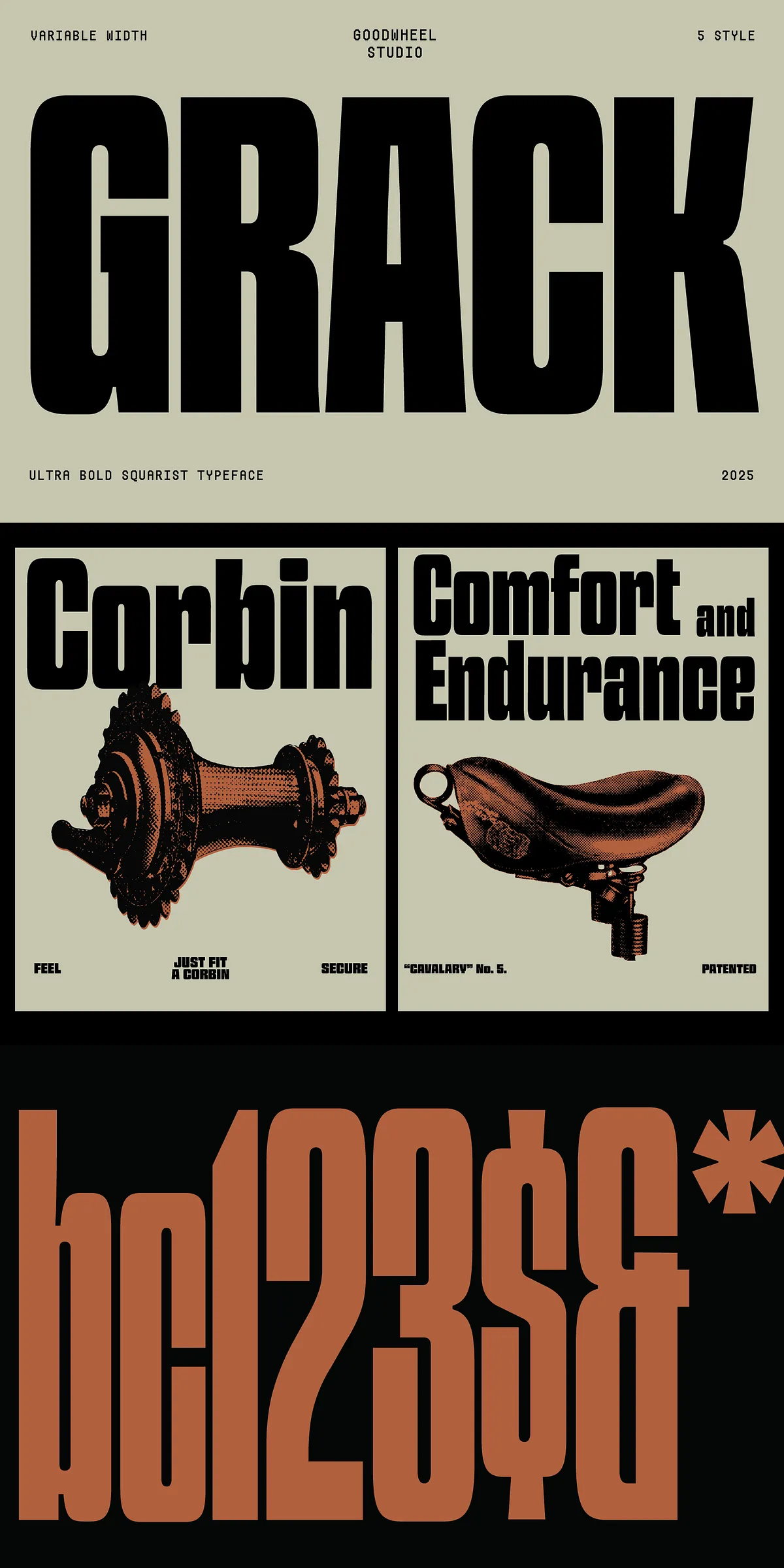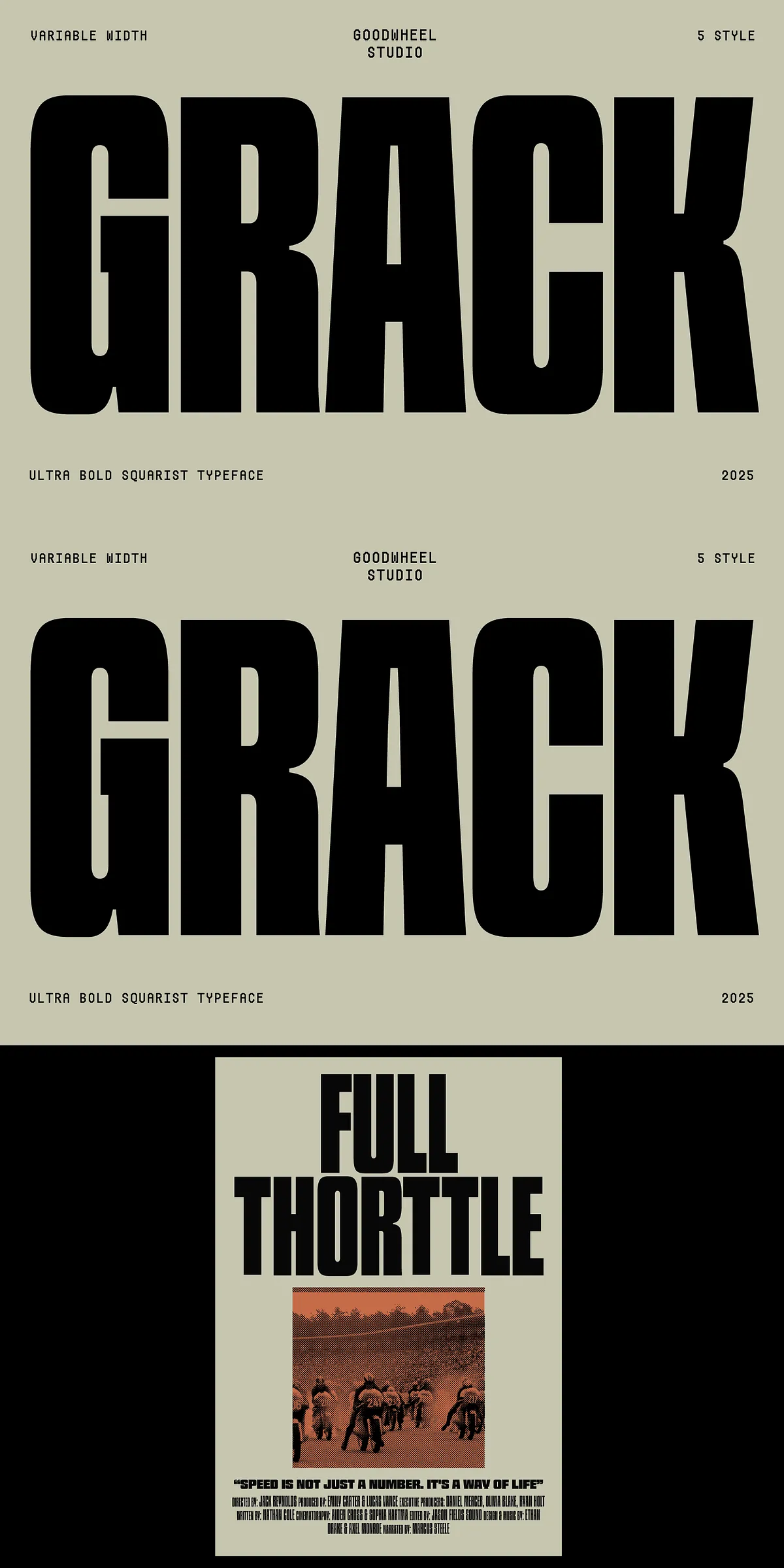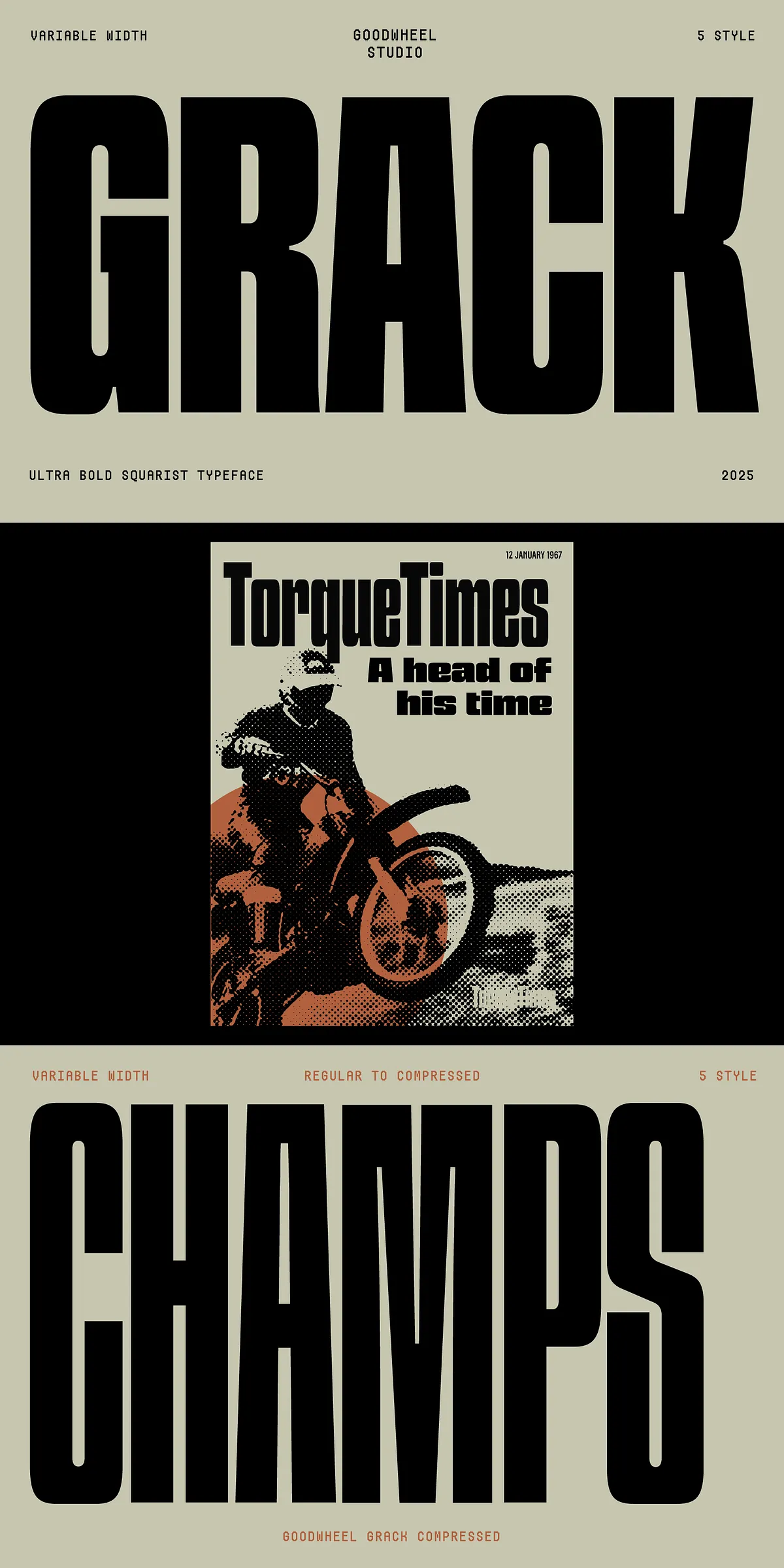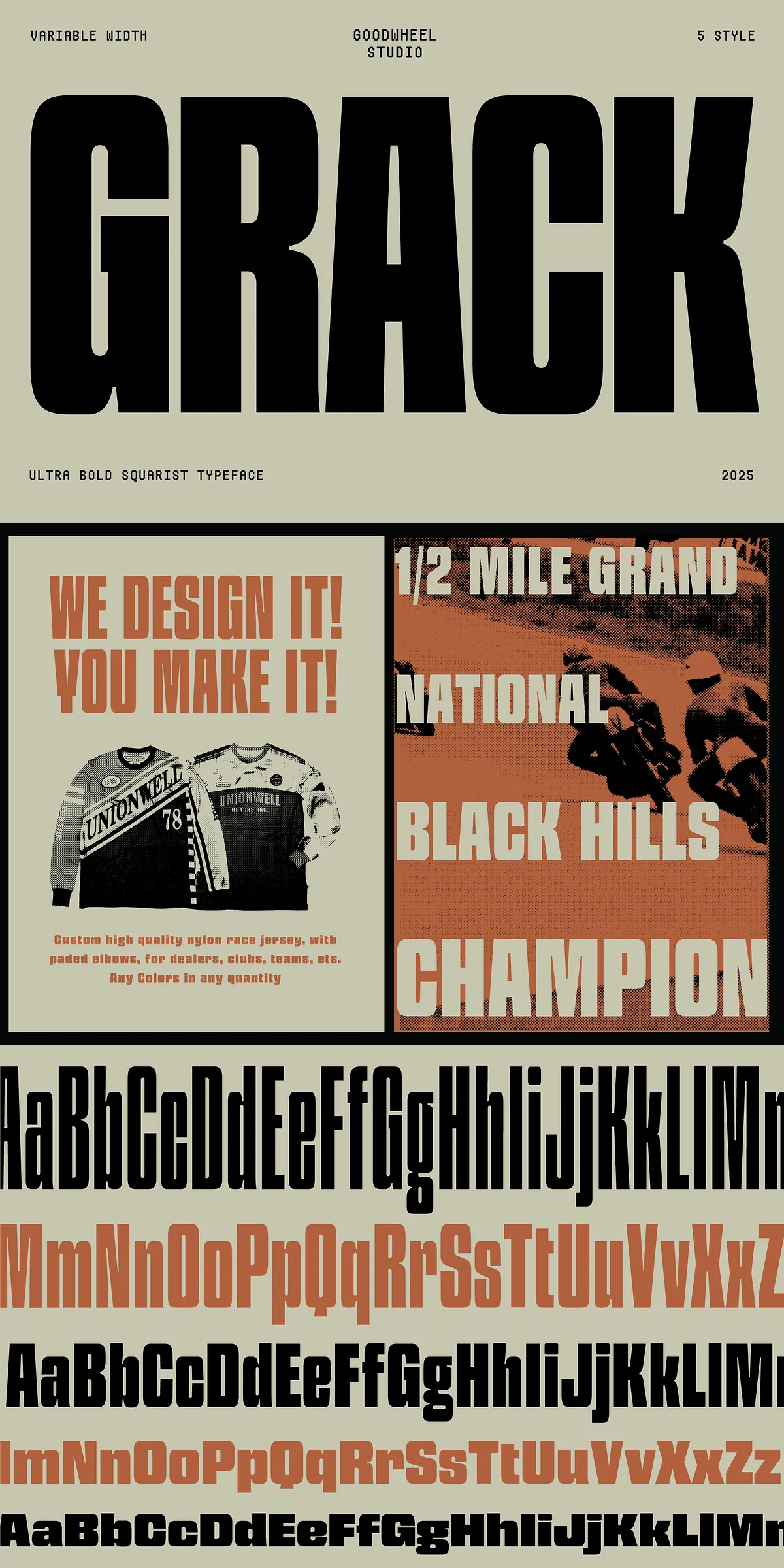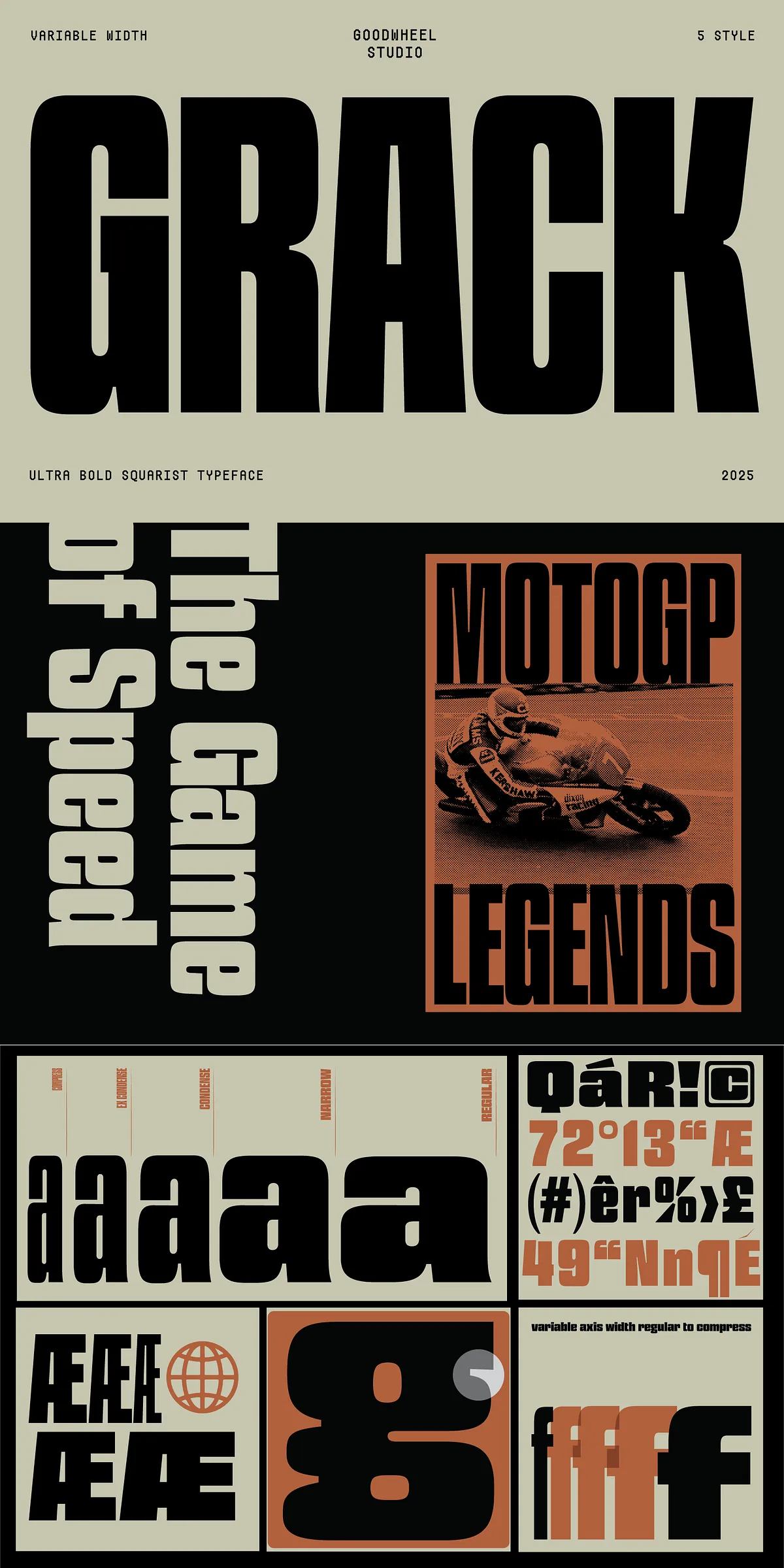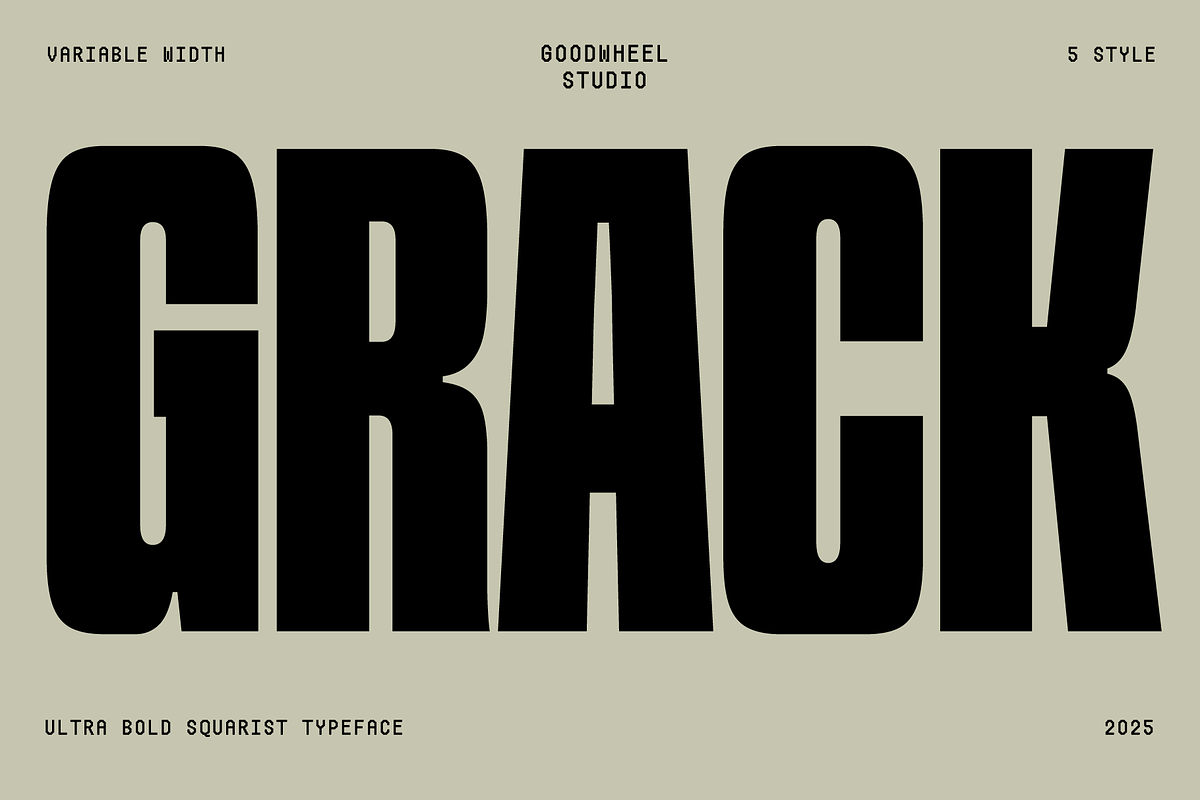
Introducing Ultrabold Squarist, a revolutionary geometric typeface engineered for maximum visual dominance. This is not a font designed to blend in — it’s built to command attention, assert authority, and define space with fearless geometry. With its impossibly thick strokes and rigid, square-inspired structure, Ultrabold Squarist redefines bold typography in the digital age.
Cut From the Same Block: Where Geometry Meets Power
Ultrabold Squarist is a statement in form and function. Every character is forged from sharp, right-angled lines and unyielding symmetry. It’s a typeface that feels like architecture made visible — like steel beams, concrete columns, and industrial gridlines translated into letterforms. Its core identity: uncompromising strength, rigid precision, and unshakable presence.
But don’t mistake rigidity for dullness. The secret lies in its variable width system — a dynamic feature that allows the typeface to compress and morph from an ultra-thick, eye-popping display weight down to a clean, streamlined regular width. This isn’t just a font family; it’s a living, responsive design tool that adapts to your creative need.
Why the Variable Width Matters: Design Intelligence in Every Stroke
This isn’t a gimmick. The variable width functionality transforms how you work. Need a headline that cuts through the noise? Crank up to the maximum thickness. Switch to mid-weight for powerful subheadings or captions. Pull back to a regular thickness for refined body text or subtle highlights — all from the same font family. No more juggling multiple weights. One font, infinite possibilities.
- Dynamic Range: From crushing heaviness to sleek minimalism — experience the full spectrum of expression.
- Creative Freedom: Perfect for branding, packaging, editorial design, posters, and digital media where boldness meets versatility.
Designed for the World — Global Reach, Strong Foundation
Where Ultrabold Squarist Belongs — The Right Canvas for Power Design
This typeface thrives where boldness is not optional — where design decisions need to be decisive and memorable.
- Branding & Identity: Create logos, markups, and brand systems that scream confidence and modernity.
- Poster & Event Design: Craft posters for concerts, film festivals, or exhibitions that stop people in their tracks.
- Packaging & Merch: Give products an industrial, premium edge — perfect for limited-edition drops or tech accessories.
- Editorial & Publications: Use as display text in magazines, newsletters, or digital publications that demand structural clarity.
- Web & UI Elements: Implement for headings, CTAs, banners, or app interface elements that need to be both legible and authoritative.
This isn’t just a design choice. It’s a declaration of intent. A choice to lead, to stand out, to be unapologetically strong in a world of soft, diluted aesthetics.
Because when you need to say something big, the world deserves a font that can roar back.